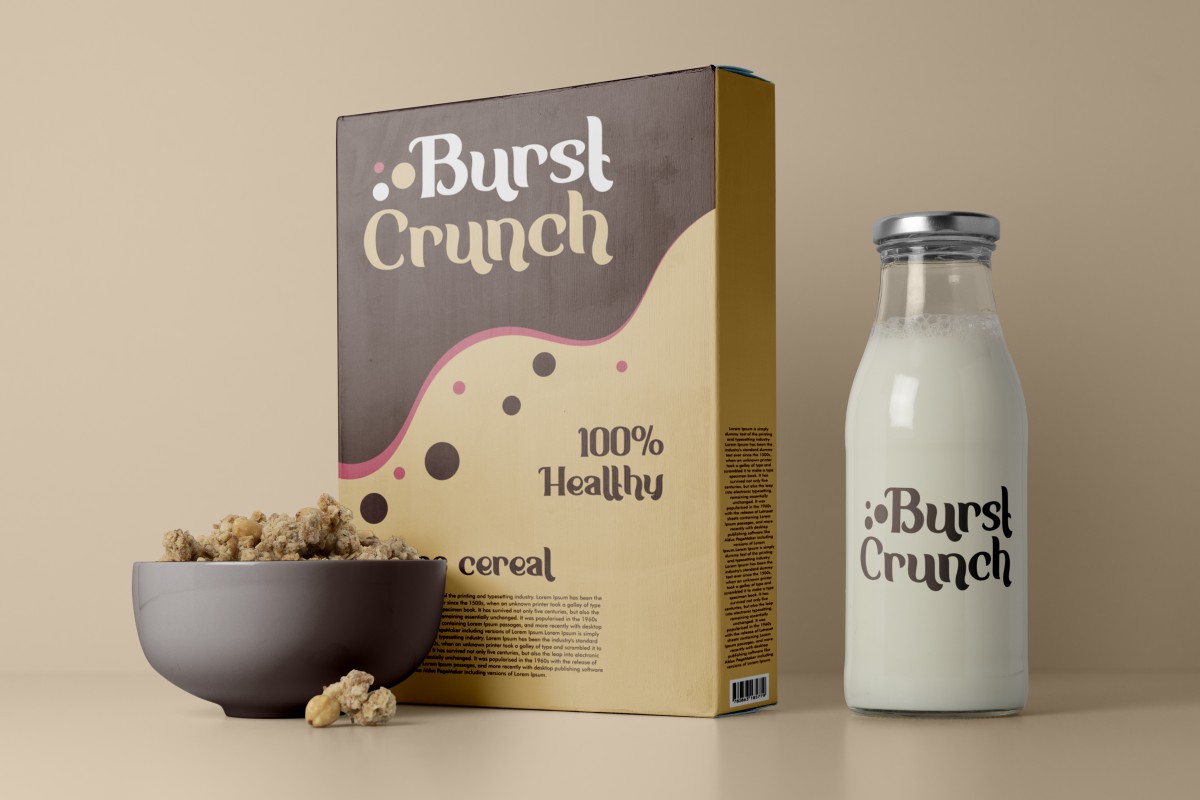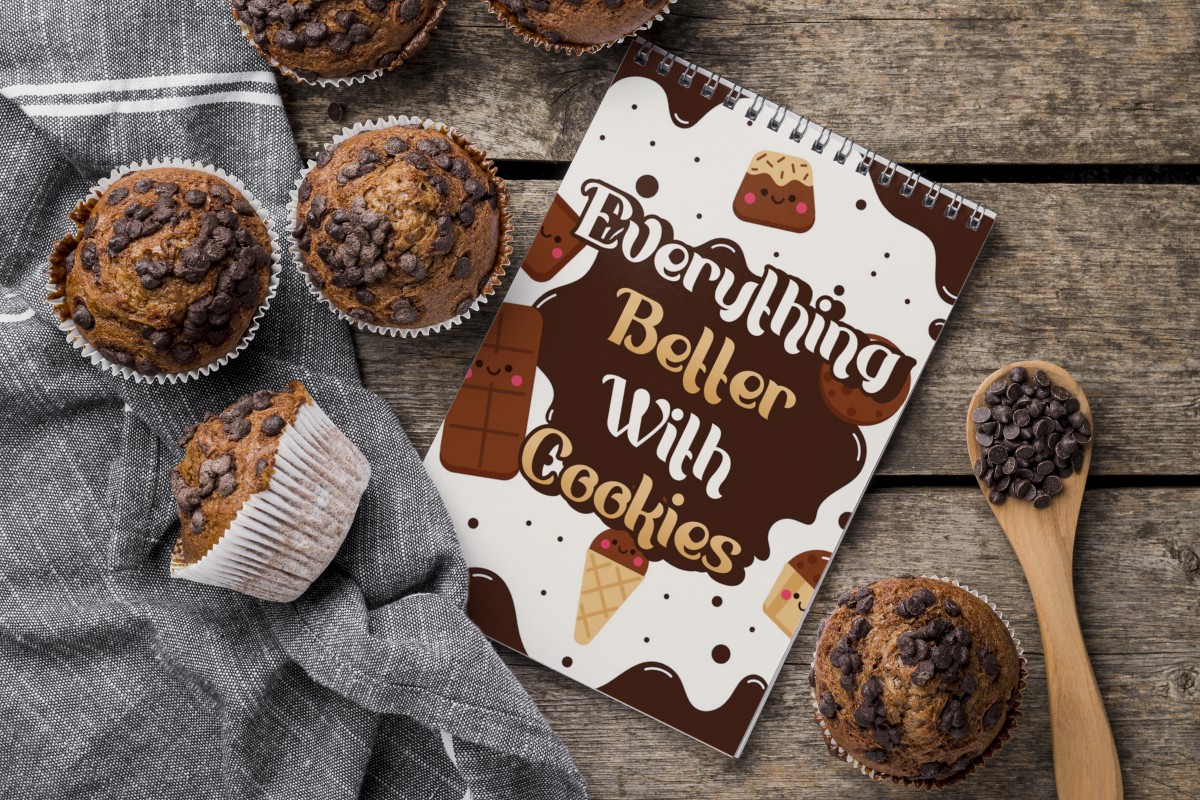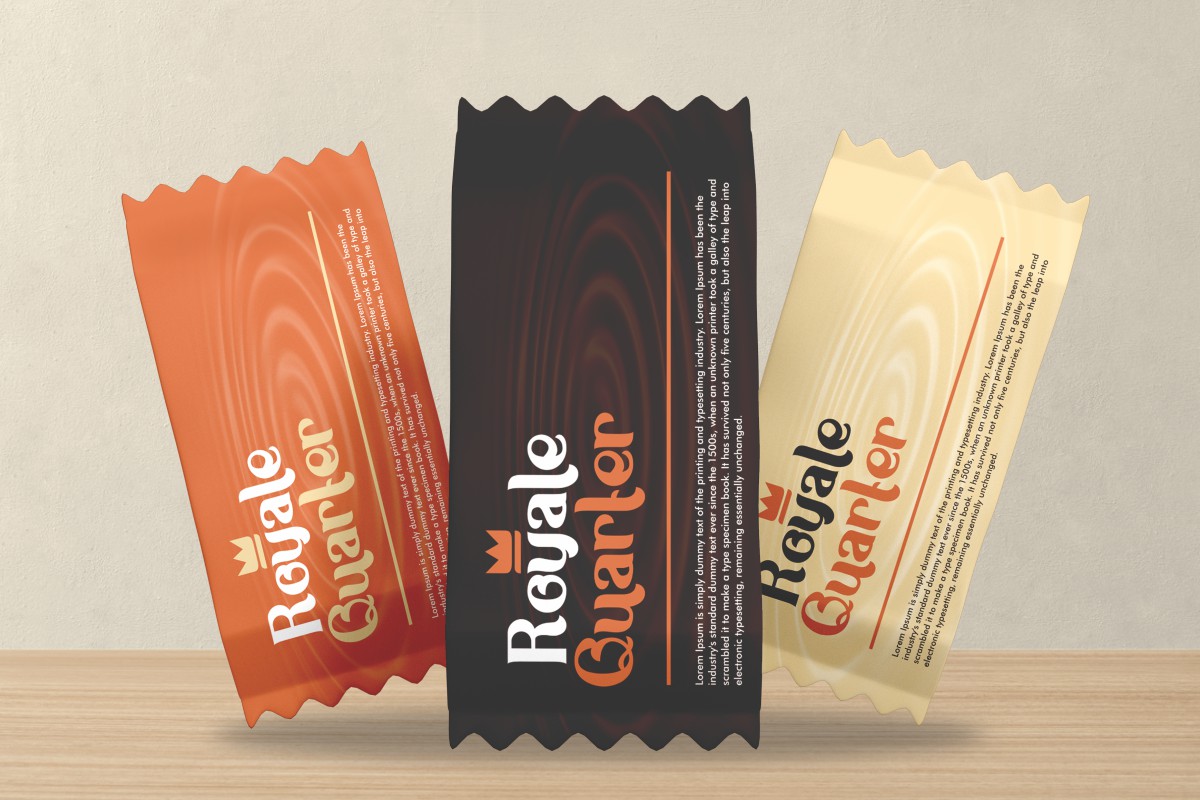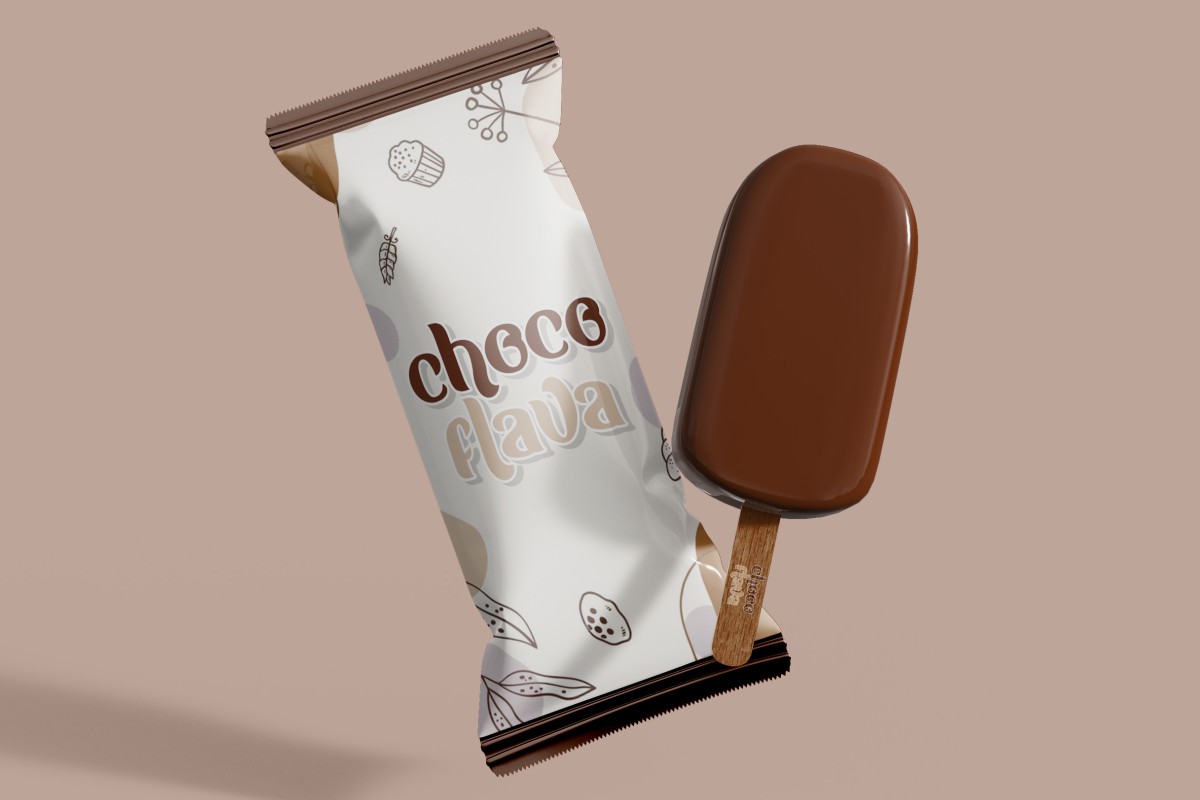
Choco Truffle Font
Choco Truffle Display Font is a playful display font with special fun style. This basic font has a beautiful bold variation, which will give your designs a fun and stylish look, such as billboard, brand logo, cover, header, label, packaging design, stationery, sticker, watermark, and much more!